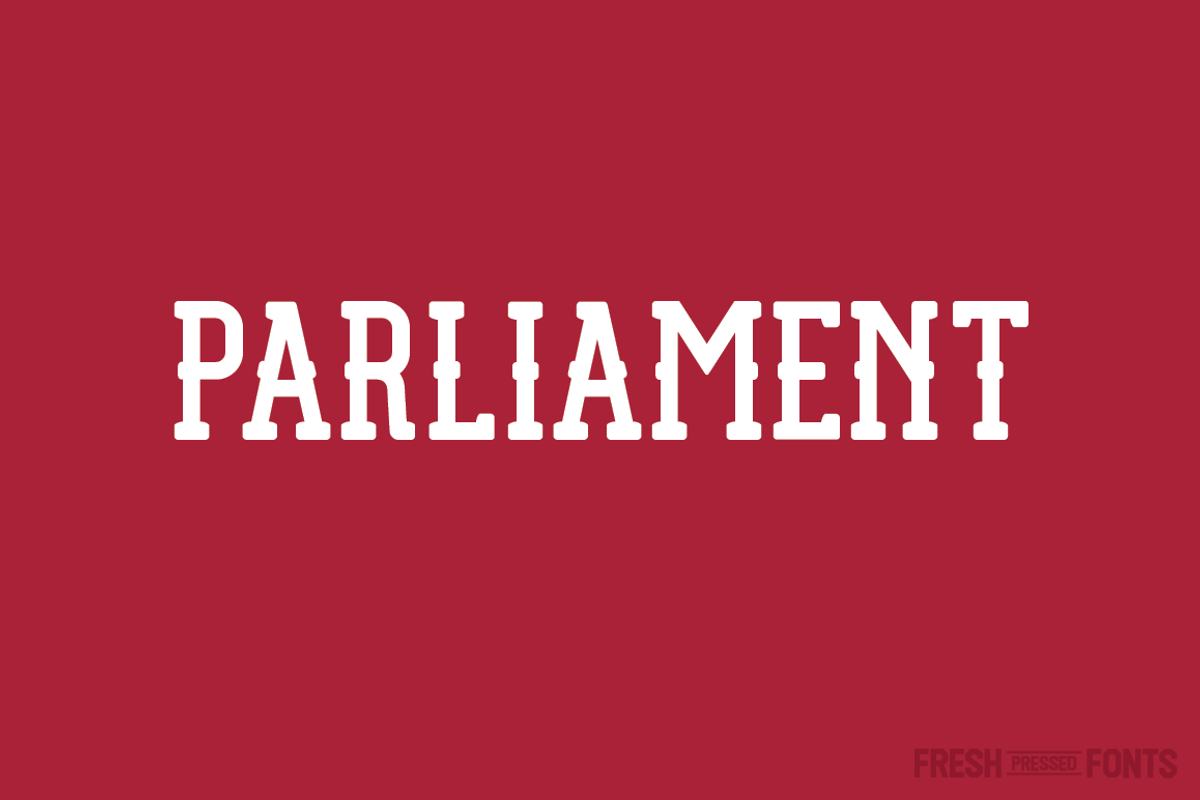
Parliament Font Free Download is a clean and elegant serif typeface designed for readability and professional appeal. With its balanced letterforms, refined serifs, and timeless design, Parliament is perfect for editorial projects, branding, logos, posters, and any design that requires a sophisticated and polished appearance.
Its versatility makes it ideal for both display and body text, making it a great choice for projects ranging from luxury branding to academic publications. The font’s high legibility and stylish proportions ensure your designs maintain clarity while exuding class and professionalism.